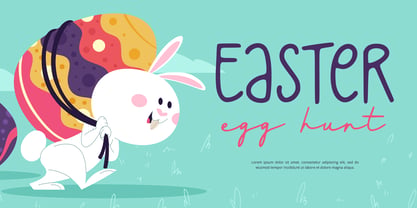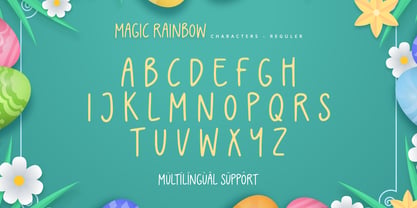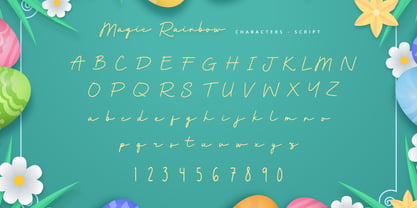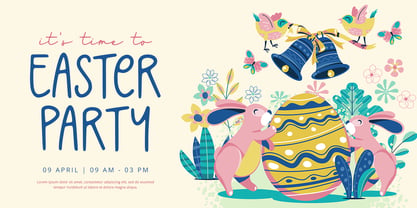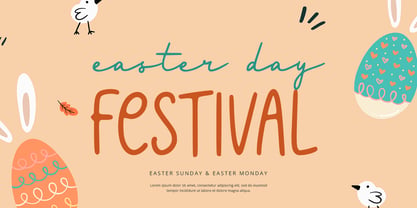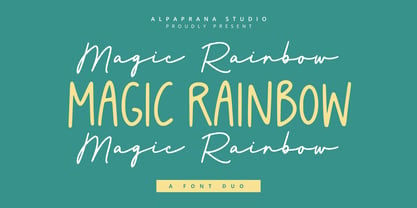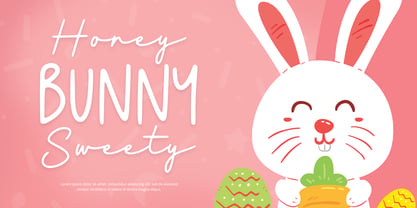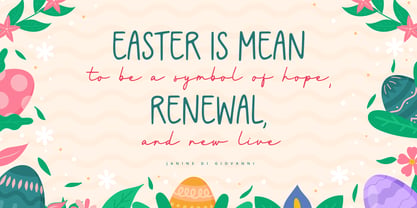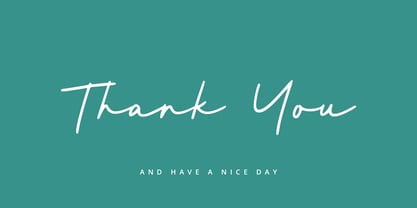
Magic Rainbow
by Alpaprana
The Magic Rainbow Font Family was designed by Nadia Salsabila and published by Alpaprana. Magic Rainbow contains 2 styles and family package options. More about this family
Magic Rainbow is a font duo with modern and playful feels. It will be perfectly used for Branding, Logo Design, Lettering, Logotype, Clothing, Poster, magazine, packaging, posters, shopping bags, t-shirts, book covers, photography, special events and other design project.
Designers: Nadia Salsabila
Foundry: Alpaprana